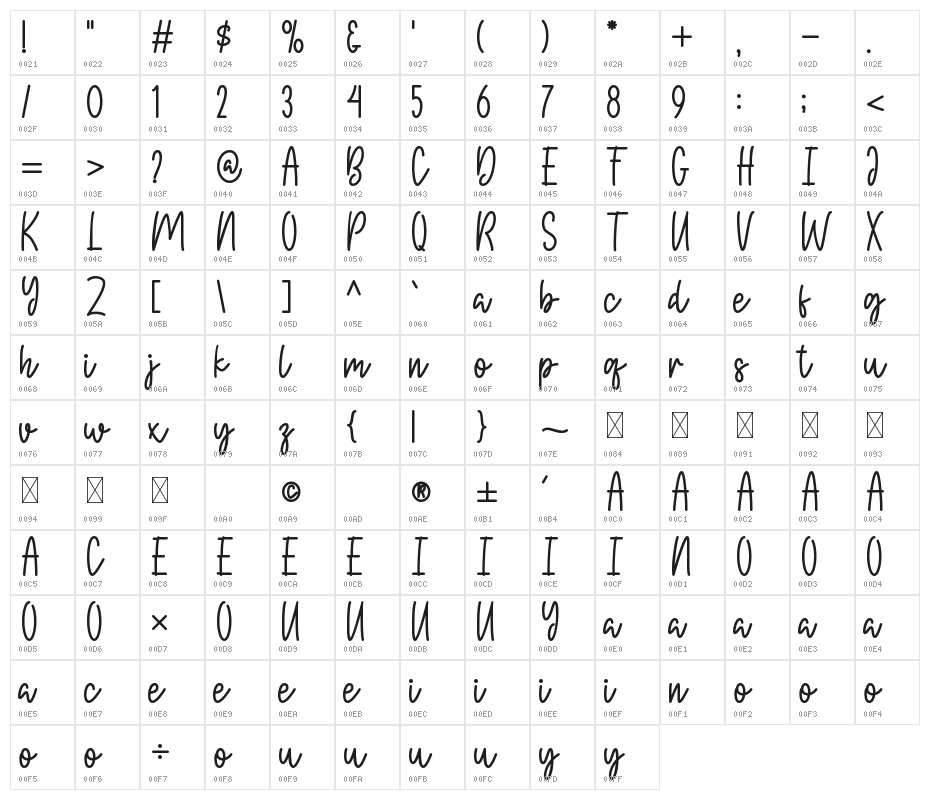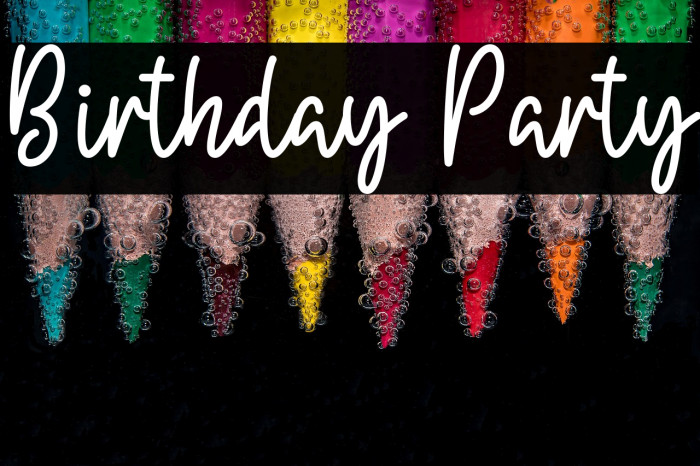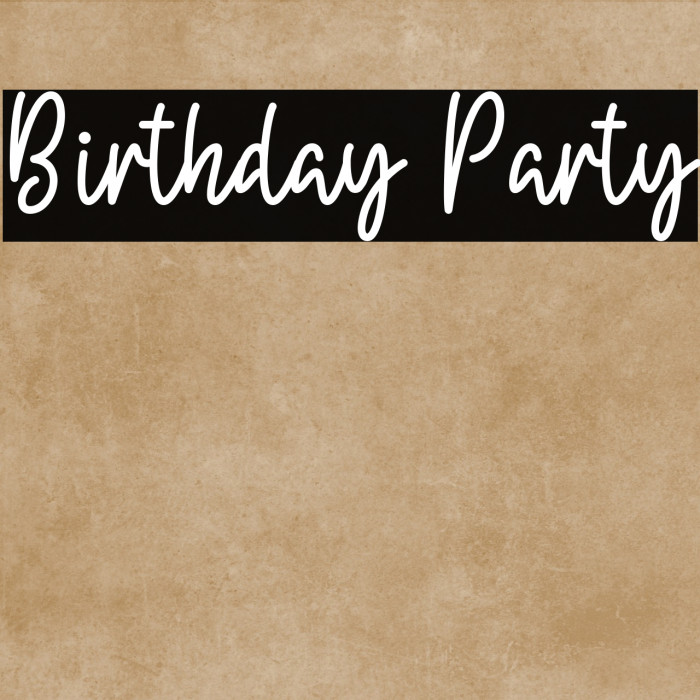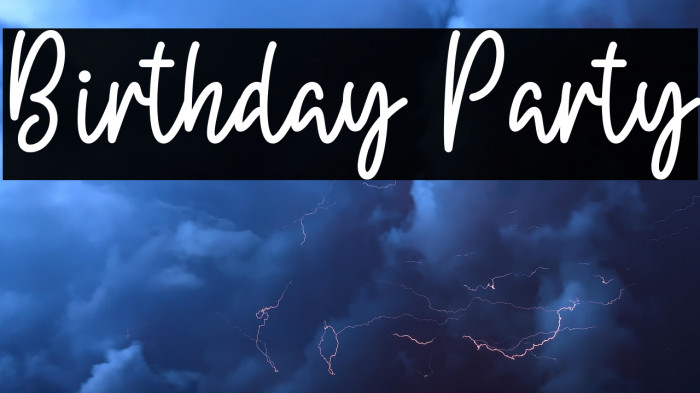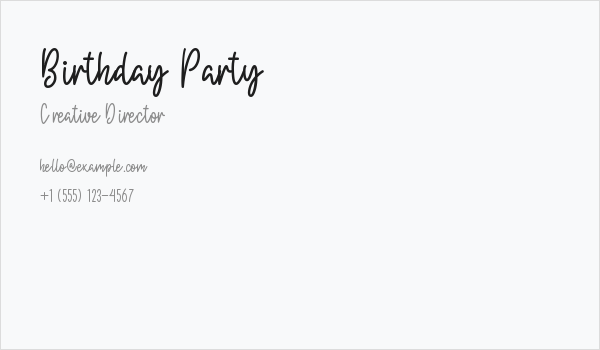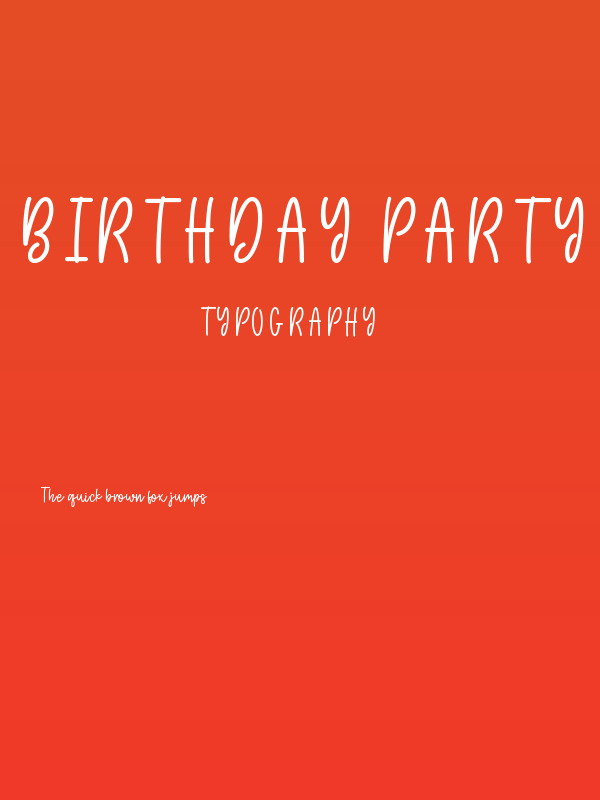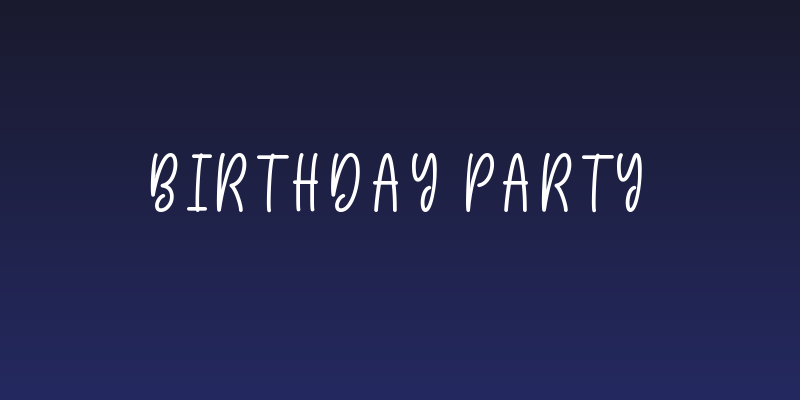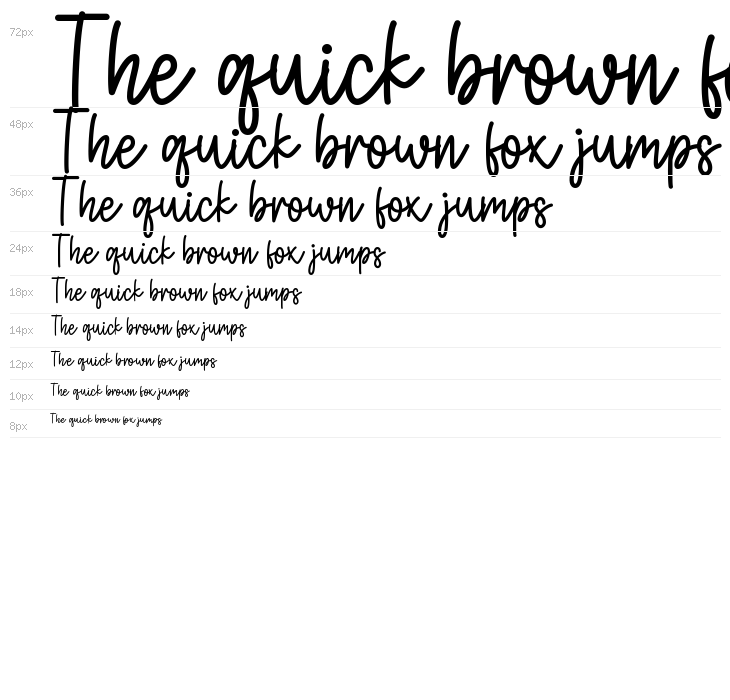
Birthday Party Font
Birthday Party Description
This playful and energetic font features a handwritten style with a casual and friendly appearance. The uppercase letters are tall and slightly narrow, with a consistent stroke width that gives a uniform look. The lowercase letters are more expressive, with some letters having loops and swirls that add a touch of whimsy. The numbers are clear and legible, maintaining the same playful style. Special characters are included, matching the overall aesthetic. This font is perfect for projects that require a fun and informal touch, such as invitations, greeting cards, and playful branding.
| Use Case | Headlines, Invitations, Greeting Cards |
| Proposed Projects | Ideal for invitations, greeting cards, playful branding, and children's books. |